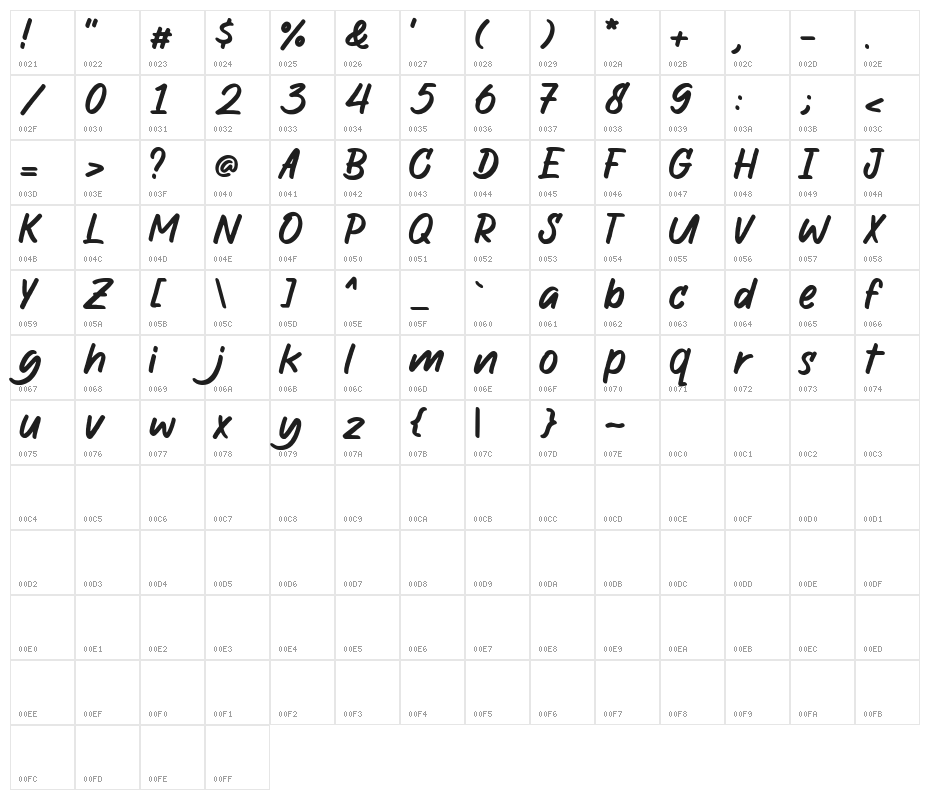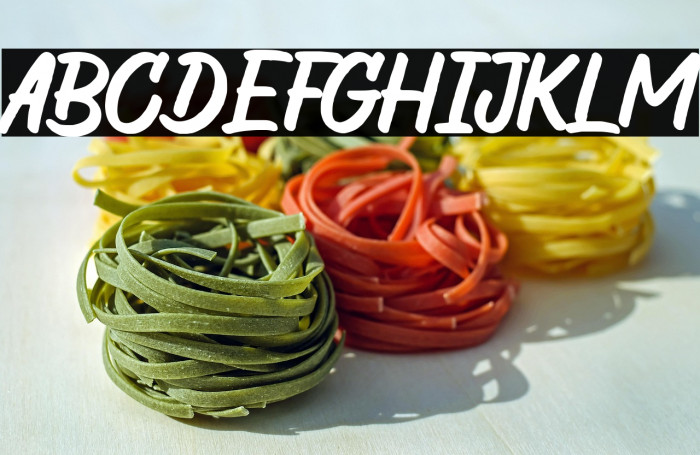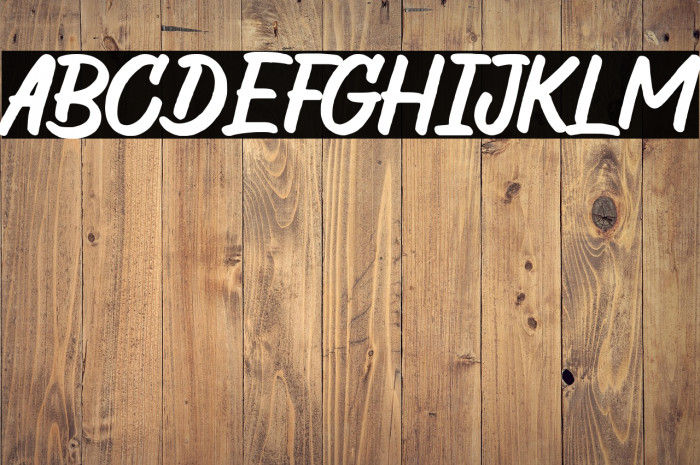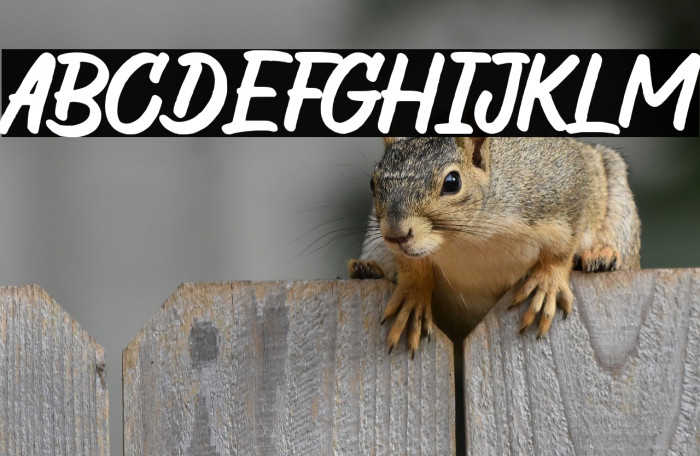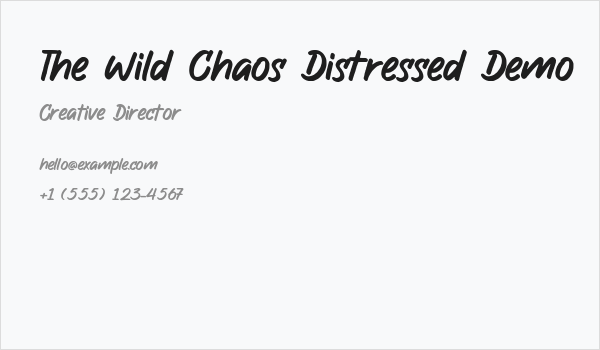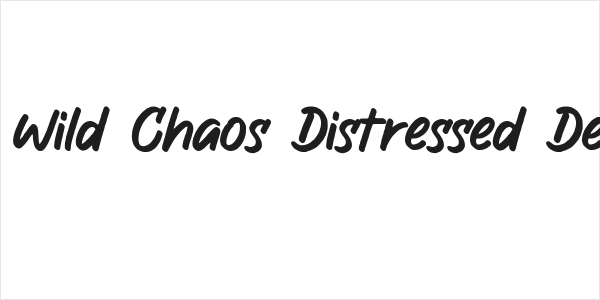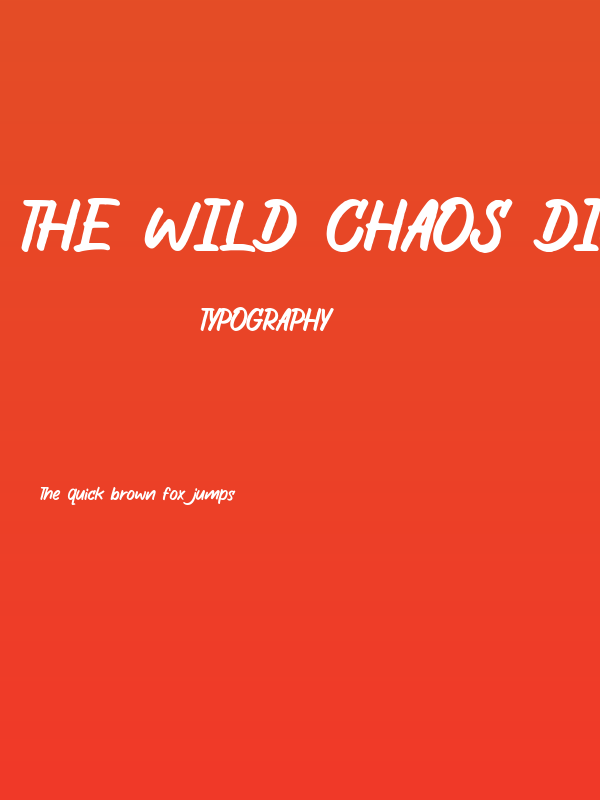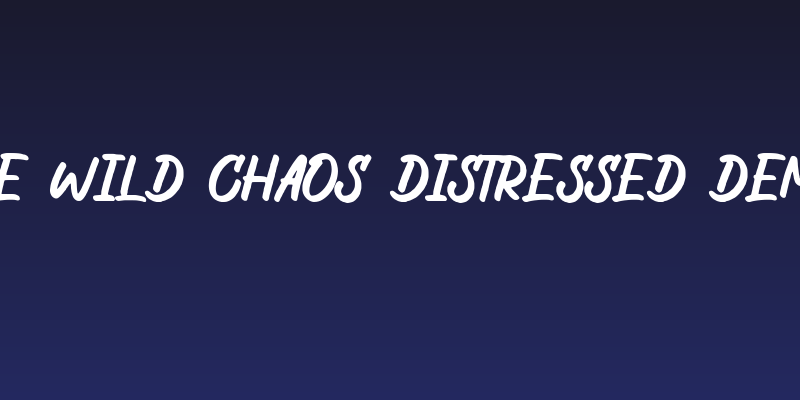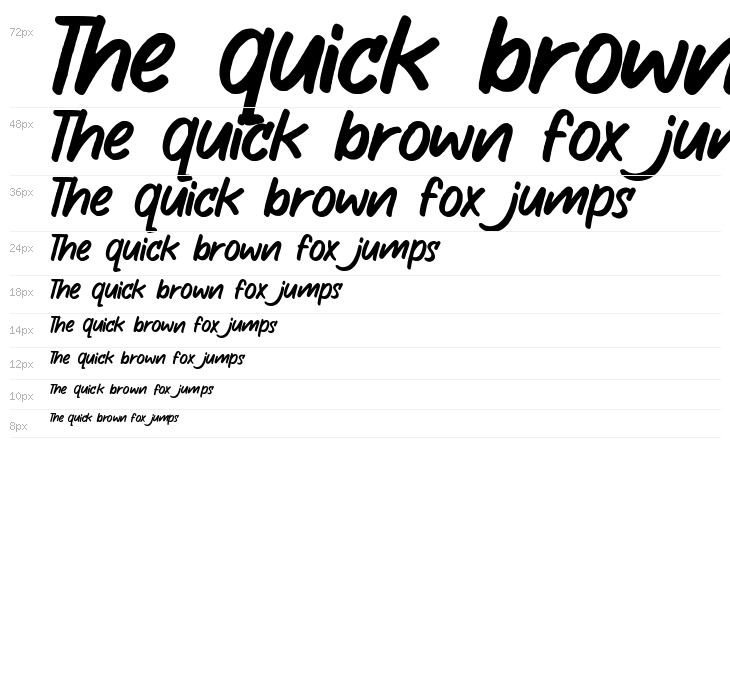
The Wild Chaos Distressed Demo Font
The Wild Chaos Distressed Demo Description
This font exudes a bold and energetic character with its hand-drawn, brush-like strokes. The letters are crafted with a sense of movement and dynamism, giving them a lively and spontaneous appearance. The uppercase and lowercase letters maintain a consistent style, with rounded edges and a slightly slanted orientation that adds to the casual, informal vibe. The numbers and special characters follow the same aesthetic, ensuring a cohesive look across all elements. This font's distressed and chaotic nature makes it stand out, perfect for projects that require a touch of creativity and flair.
| Proposed Projects | Ideal for creative projects such as posters, album covers, branding for artistic ventures, or any design needing a dynamic and informal touch. |